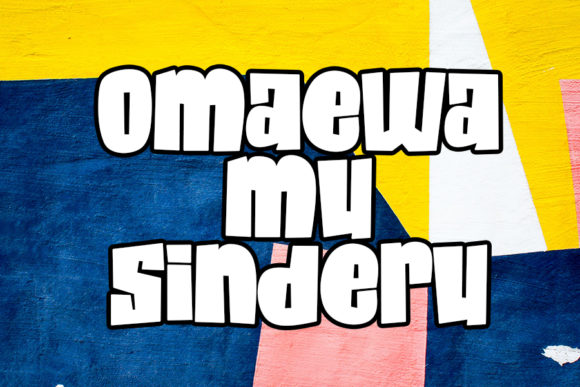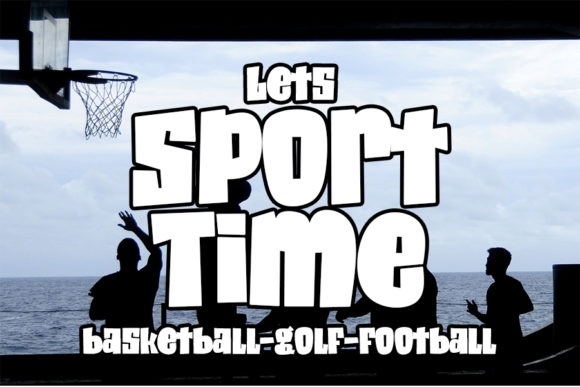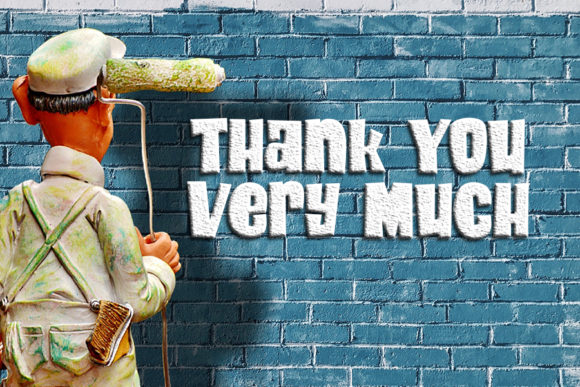
Unleash Your Creativity with Football Mania Font
Are you a designer, crafter, or enthusiast looking for a font that can add a touch of excitement and energy to your creative projects? Look no further than the Football Mania Font! This bold and thick lettered display font is perfect for making a statement and taking your designs to the next level.
What is Football Mania Font?
Football Mania Font is a carefully crafted display font that exudes a friendly and approachable feel. Its bold and thick lettering makes it incredibly versatile, allowing it to fit seamlessly into a wide range of contexts. Whether you’re designing a logo, creating a poster, or crafting a social media graphic, Football Mania Font is the perfect choice.
Key Features of Football Mania Font
- Bold and Thick Lettering: Football Mania Font features bold and thick lettering that grabs attention and makes a statement.
- Friendly Feel: Despite its boldness, Football Mania Font has a friendly and approachable feel that makes it perfect for a wide range of applications.
- Versatility: This font is incredibly versatile and can be used in various contexts, from sports and fitness to entertainment and lifestyle.
- Easy to Read: Football Mania Font is designed to be easy to read, even at smaller sizes, making it perfect for use in a variety of applications.
How to Use Football Mania Font
Football Mania Font is perfect for designers, crafters, and enthusiasts who want to add a touch of excitement and energy to their creative projects. Here are some ideas to get you started:
- Logo Design: Use Football Mania Font to create a bold and memorable logo for your business or brand.
- Poster Design: Create eye-catching posters for sports events, concerts, or festivals using Football Mania Font.
- Social Media Graphics: Add a touch of excitement to your social media graphics with Football Mania Font.
- Crafting Projects: Use Football Mania Font to add a personal touch to your crafting projects, such as scrapbooking or card making.
Benefits of Using Football Mania Font
By using Football Mania Font, you can:
- Stand Out from the Crowd: Football Mania Font is designed to grab attention and make a statement, helping you stand out from the crowd.
- Convey Energy and Excitement: This font is perfect for conveying energy and excitement, making it ideal for sports, entertainment, and lifestyle applications.
- Enhance Your Brand: Football Mania Font can help enhance your brand by adding a touch of personality and flair to your designs.
Tips for Using Football Mania Font Effectively
Here are some tips for using Football Mania Font effectively:
- Use it Boldly: Football Mania Font is designed to be used boldly, so don’t be afraid to experiment with different sizes and colors.
- Pair it with Other Fonts: Football Mania Font pairs well with other fonts, so experiment with different combinations to find the perfect look for your design.
- Experiment with Colors: Football Mania Font looks great in a variety of colors, so experiment with different hues to find the perfect color scheme for your design.
Football Mania Font is a bold and versatile display font that’s perfect for designers, crafters, and enthusiasts who want to add a touch of excitement and energy to their creative projects. With its friendly feel and bold lettering, this font is sure to make your designs stand out from the crowd. So why wait? Download Football Mania Font today and unleash your creativity!